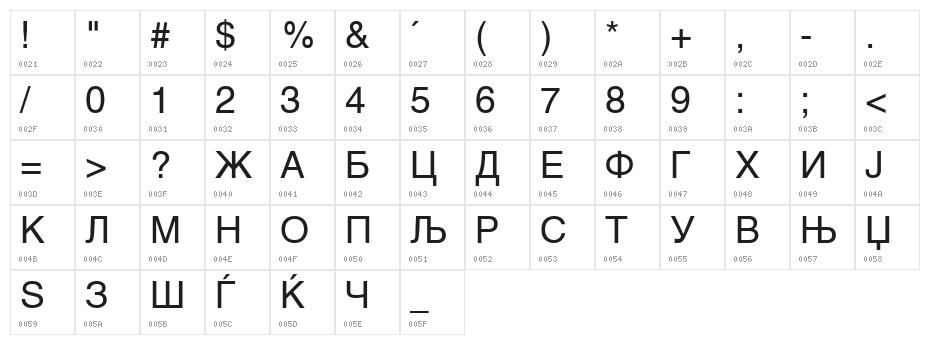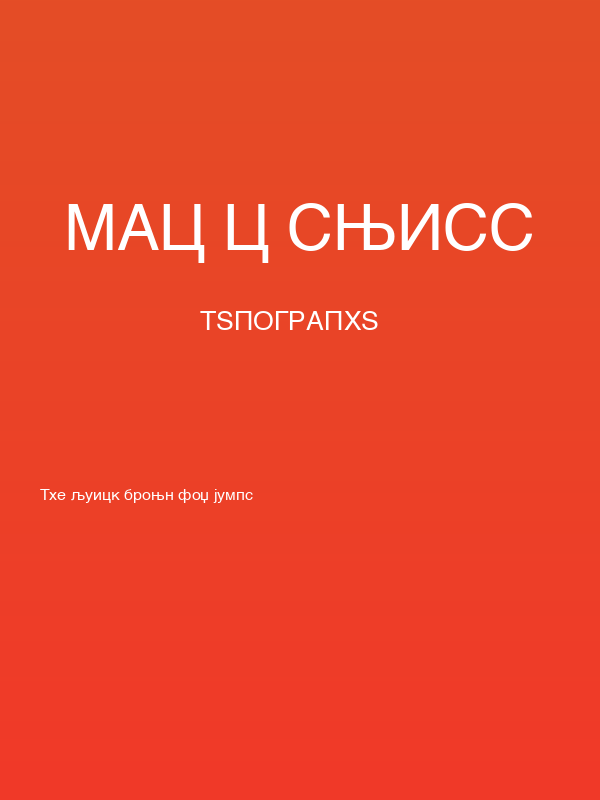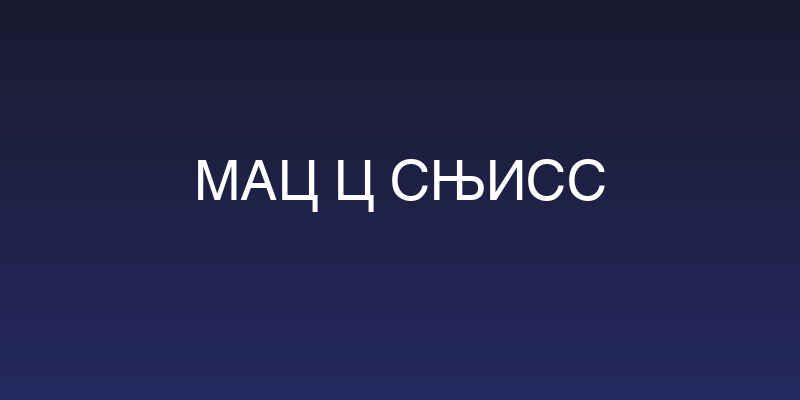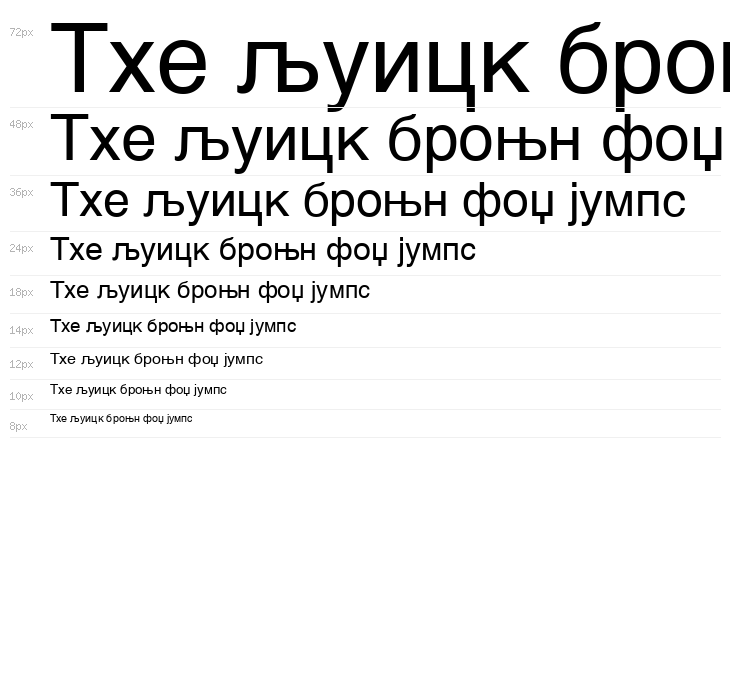
MAC C Swiss Font
MAC C Swiss Description
This font features a clean and modern design with a sans-serif style, characterized by its simplicity and readability. The characters are evenly spaced, providing a balanced and harmonious appearance. The uppercase and lowercase letters maintain a consistent height, contributing to its uniform look. The numerals are clear and distinct, making them easy to read. Special characters are well-defined, enhancing the font's versatility. The overall design is straightforward, making it suitable for a wide range of applications.
| Proposed Projects | Ideal for corporate branding, user interfaces, signage, and editorial design. |